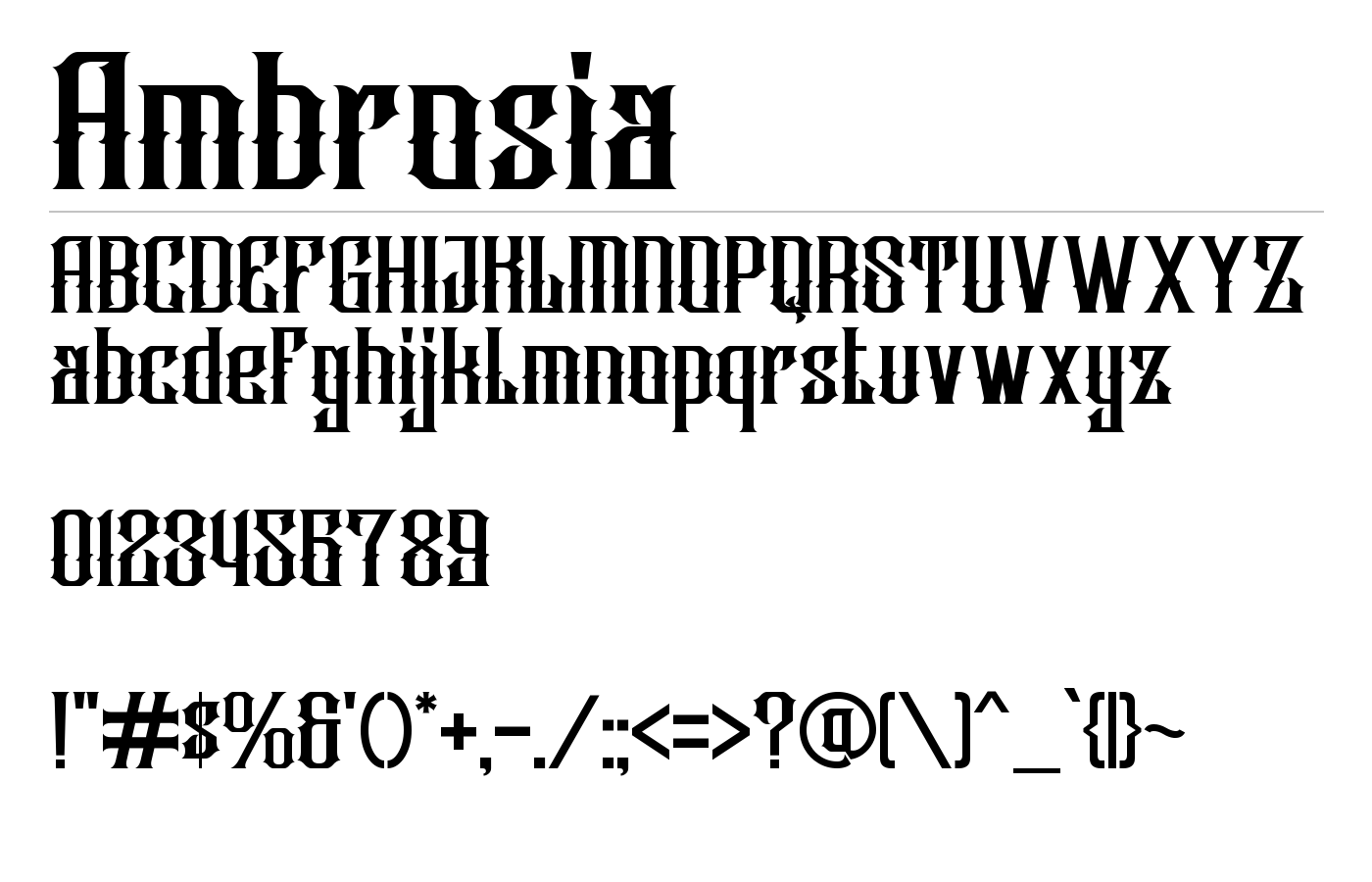
Ambrosia is a bold, condensed serif font with a strong gothic influence, characterized by its high contrast between thick and thin strokes and sharply bracketed serifs. Its tall, narrow letterforms with intricate details evoke a vintage, dramatic vibe, making it ideal for striking headlines, logos, and branding that require a bold, memorable presence with a historic or edgy feel. This font works best in display uses where its distinctive style can shine without compromising readability.
Ambrosia Font
About Ambrosia Font